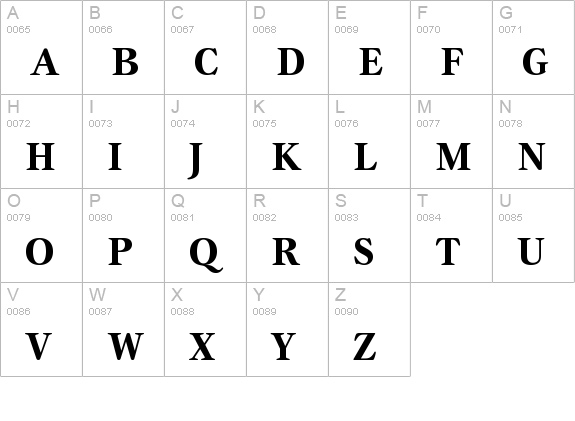
GammaEF-Bold is a strong, high-contrast variant in the GammaEF typeface family \xE2\x80\x94 well suited to headlines, attention-grabbing titles, and strong calls-to-action.
GammaEF-Bold is a modern and stylish font that effortlessly combines elegance with a touch of boldness. With its clean lines and strong presence, this typeface is perfect for creating eye-catching headlines, logos, and branding materials. The bold weight of GammaEF-Bold adds a sense of confidence and power to any design, making it ideal for projects that require a strong visual impact. One of the standout features of GammaEF-Bold is its versatility. Whether you're working on a print design, website, or any other creative project, this font will adapt effortlessly to suit your needs. Its legibility remains intact even at smaller sizes, ensuring that your message is always conveyed with clarity and impact. What sets GammaEF-Bold apart is not only its exceptional design, but also the fact that it is available for free download at FontsMarket.com. This means that you can enjoy the benefits of this stunning font without any cost. Whether you're a professional designer or a hobbyist, having access to high-quality fonts like GammaEF-Bold can greatly enhance your creative projects. So why wait? Download GammaEF-Bold today from FontsMarket.com and unlock the potential to create stunning designs that capture attention and leave a lasting impression. With its stylish aesthetic and freely available download, GammaEF-Bold is a must-have font for any designer looking to make a bold statement.